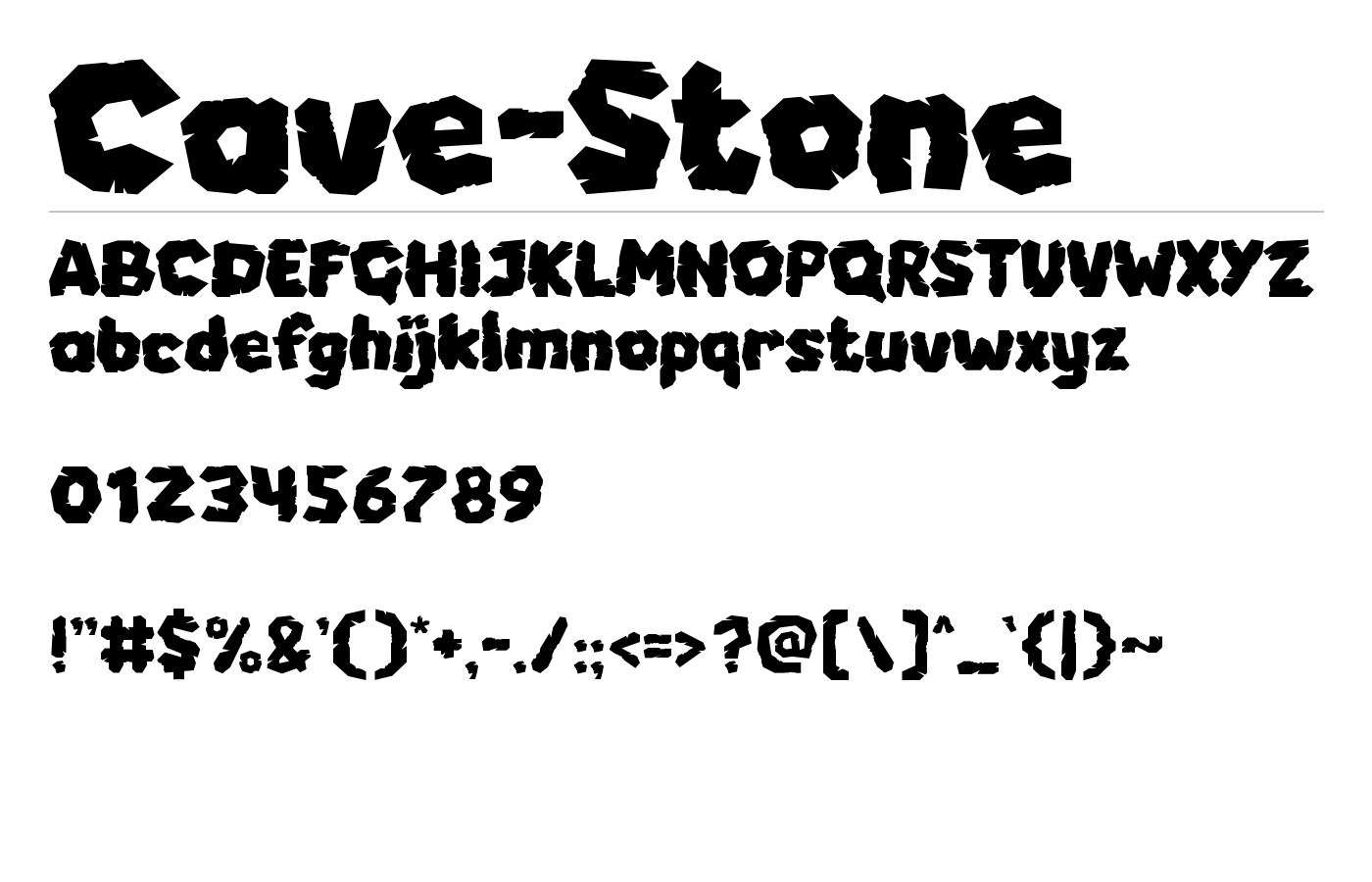
Cave Stone is a bold, playful sans serif font with a rugged, chiseled appearance that mimics jagged stone edges. Its irregular, tactile letterforms with high stroke contrast and rough texture make it perfect for eye-catching headlines, themed designs, or creative projects that want to evoke a sense of adventure, strength, or prehistoric style. This font works well in posters, logos, and packaging where a strong, informal impact is desired.
Cave Stone Font
About Cave Stone Font